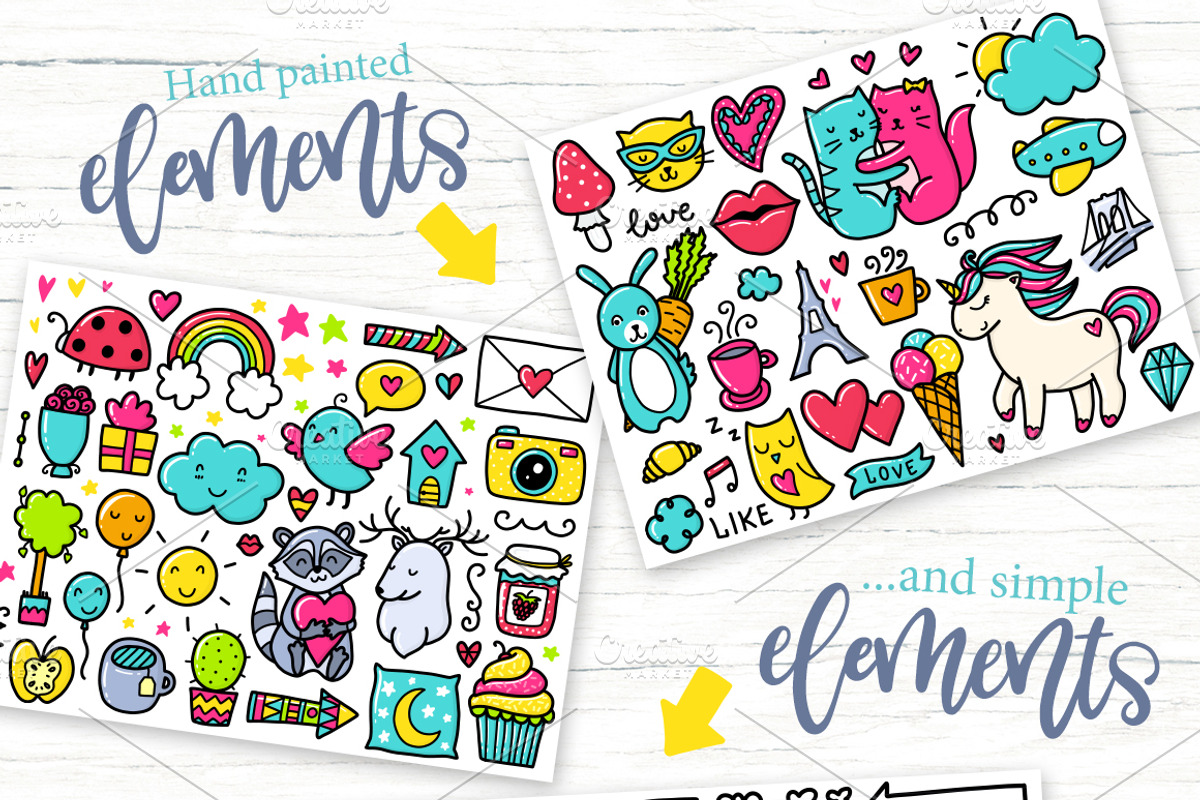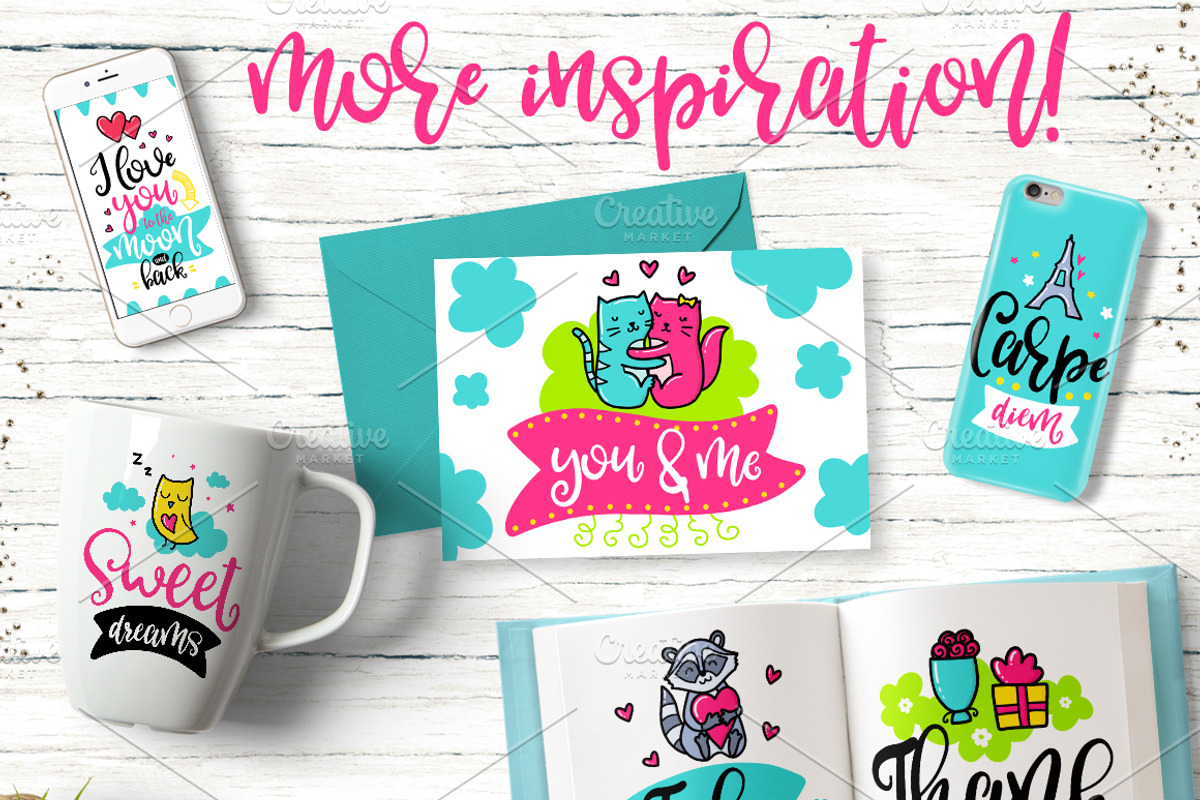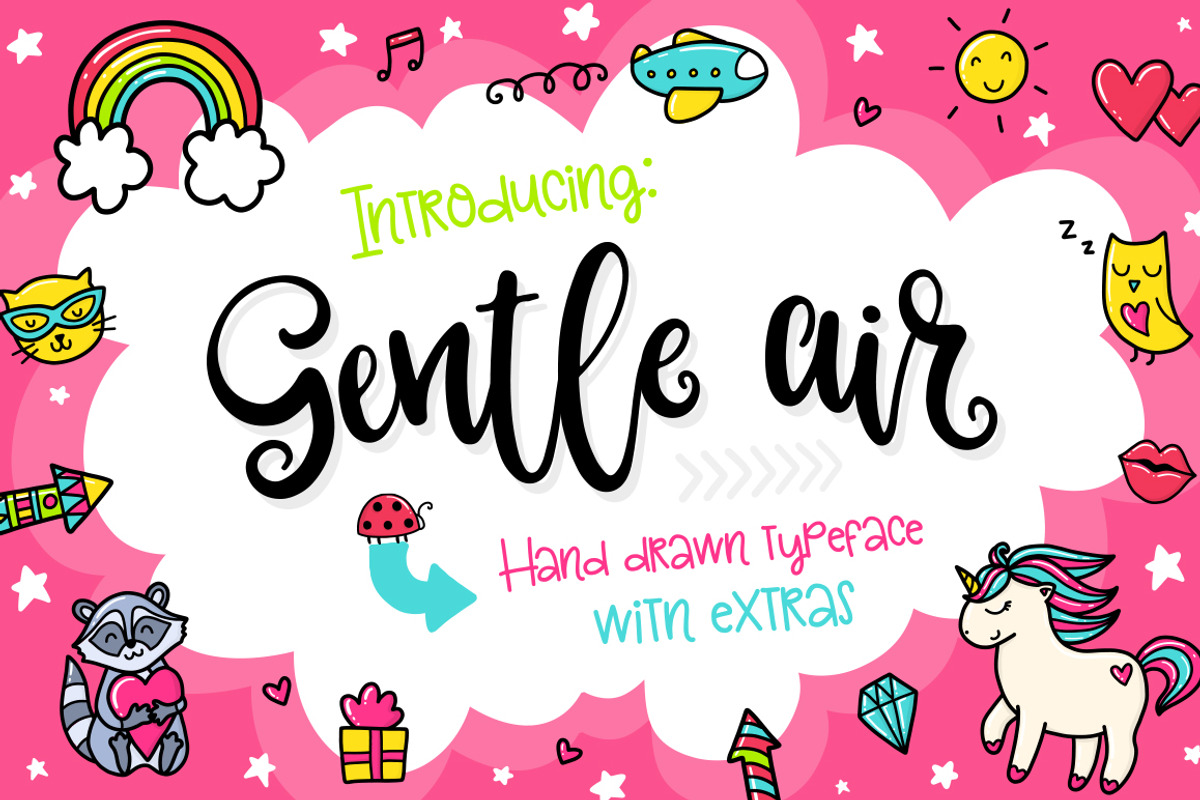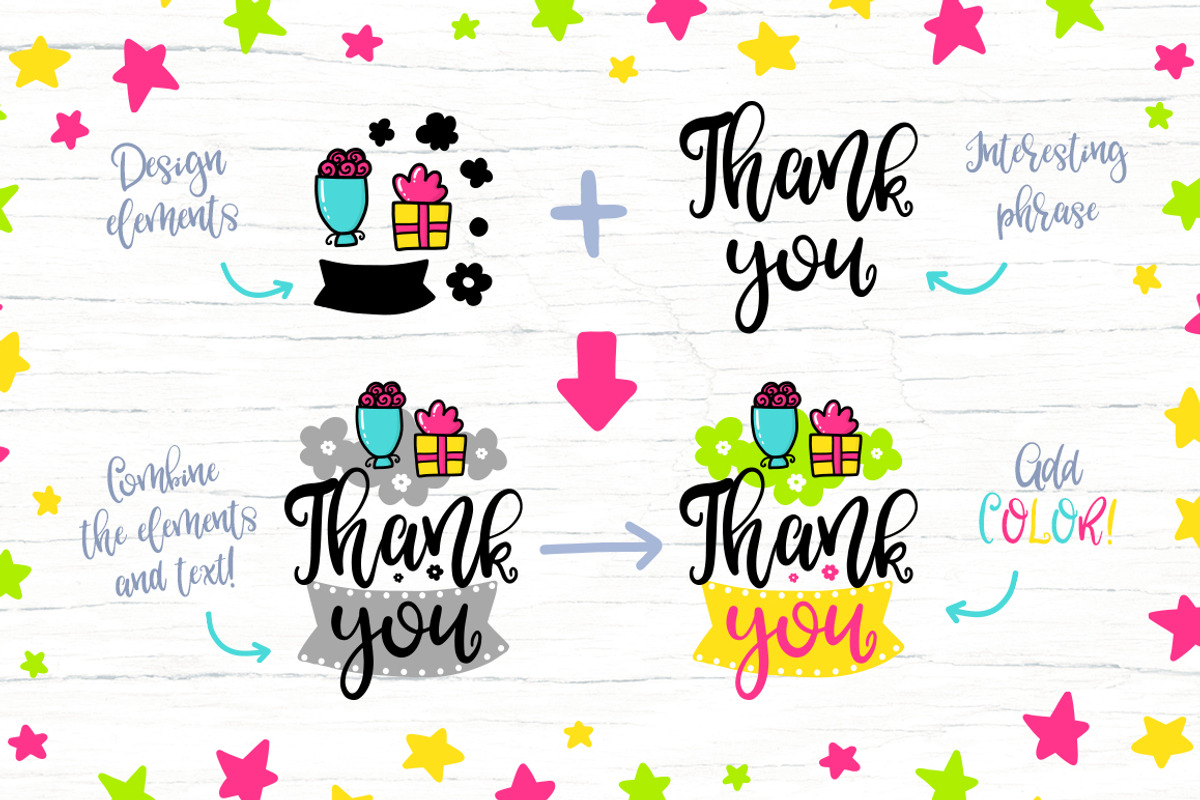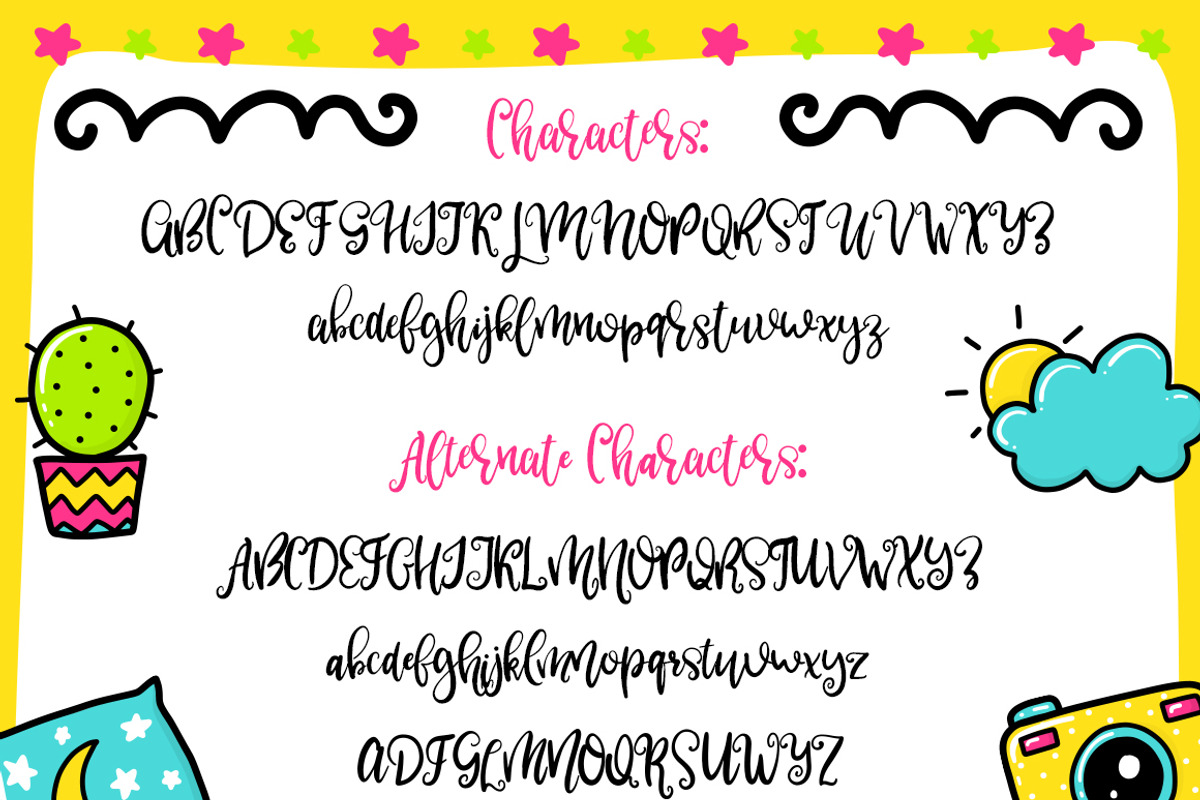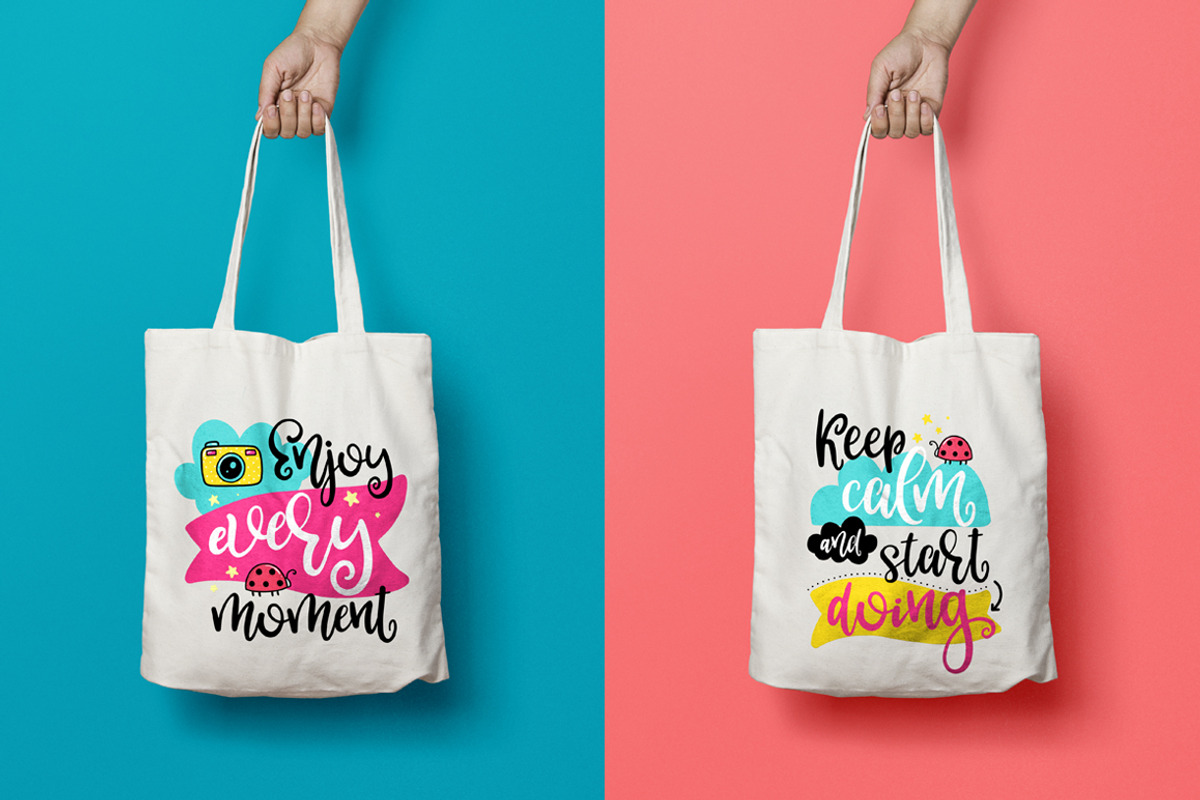
Gentle Air Typeface with Extras
♥ Gentle Air - typeface for your funny projects! Hand drawn script!♥ This handwritten font is perfect for cards, prints, logos, wedding invitations, arrange illustration and decoration.
- It has upper and lower case letters, numbers, special characters, accents, alternates and ligatures.